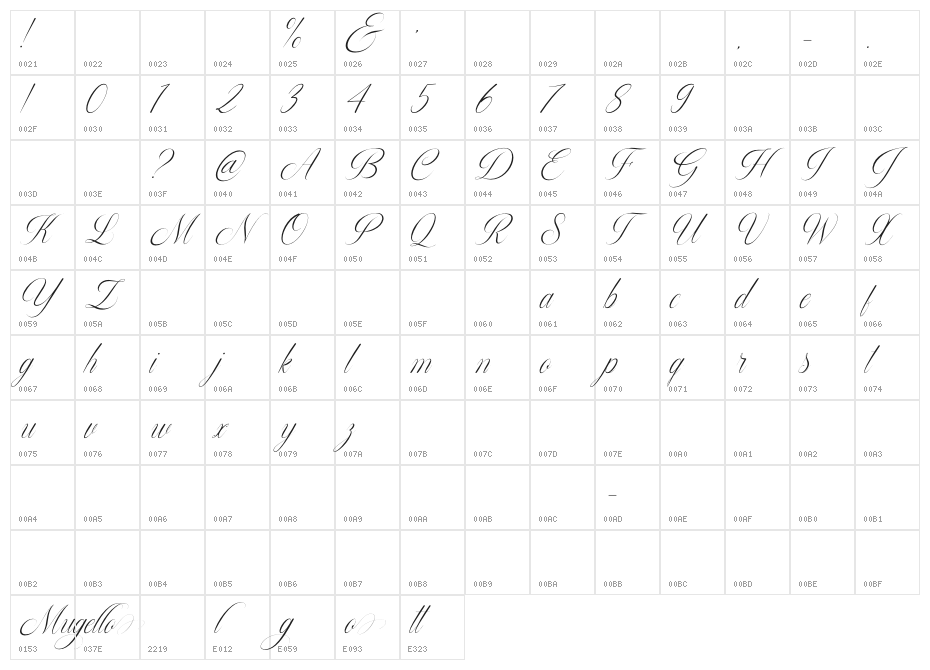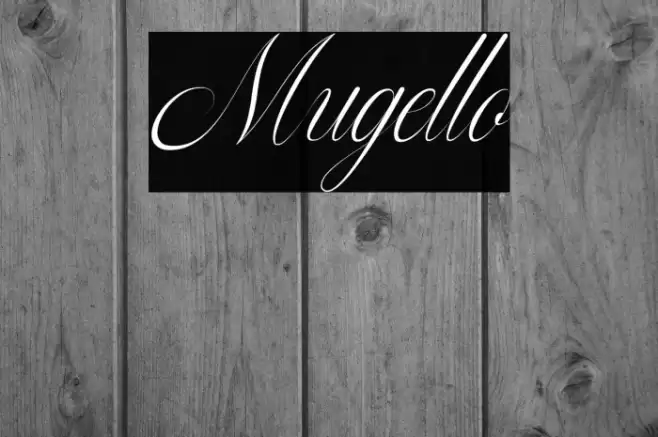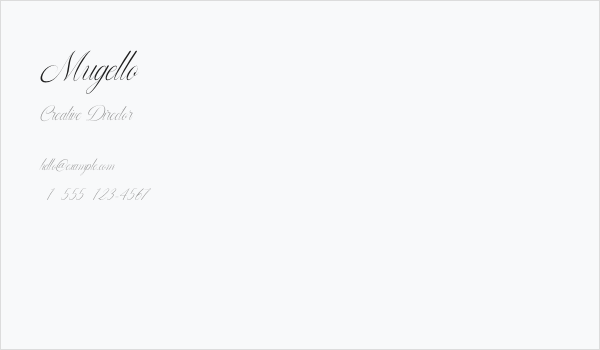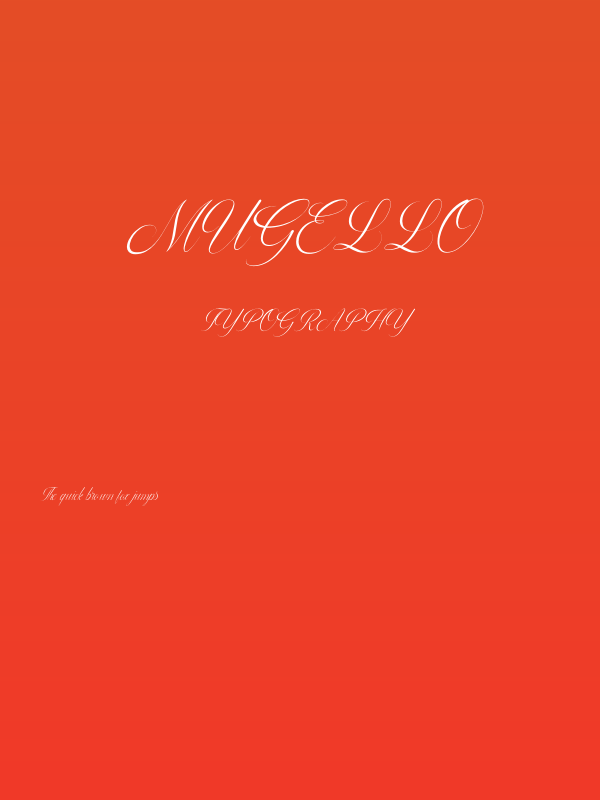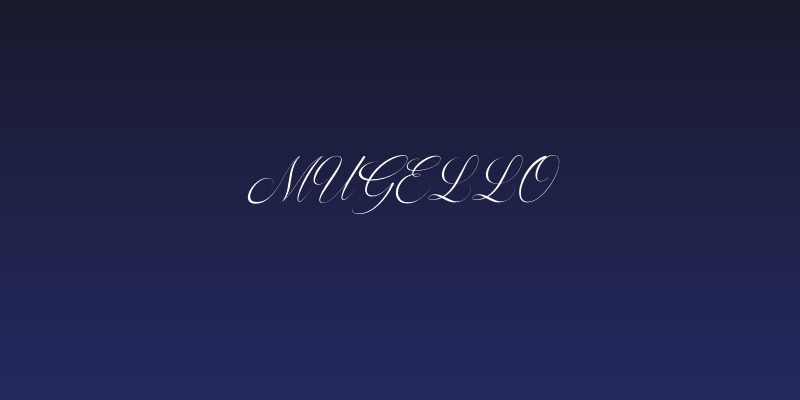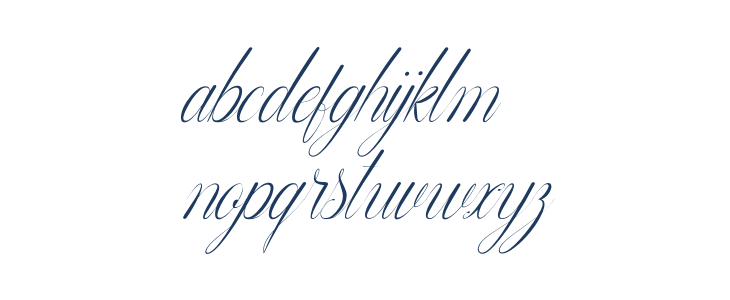
Mugello Font
Mugello Description
This elegant script font features a flowing, cursive style with high contrast between thick and thin strokes. The characters are gracefully connected, creating a sense of fluidity and movement. The uppercase letters are ornate and sophisticated, while the lowercase letters maintain a consistent slant, enhancing the overall elegance. The numerals and special characters are designed to complement the script style, maintaining the same level of sophistication and fluidity. This font is ideal for projects that require a touch of elegance and refinement.
Overall StyleElegant
Use CaseLogos, Invitations, Branding
Proposed ProjectsWedding invitations, luxury branding, elegant packaging, formal event programs.